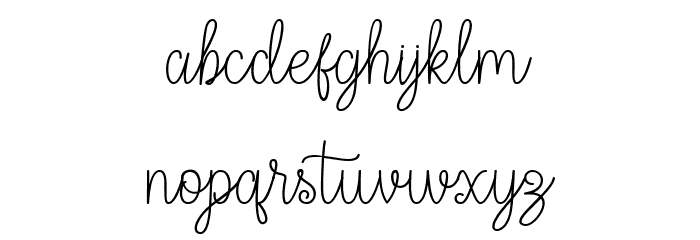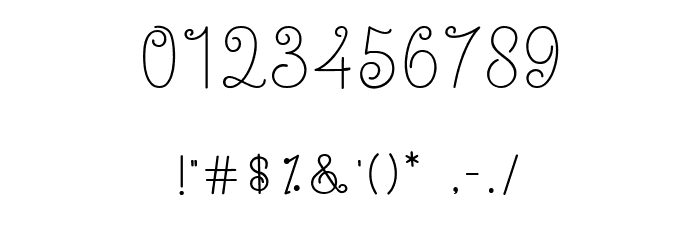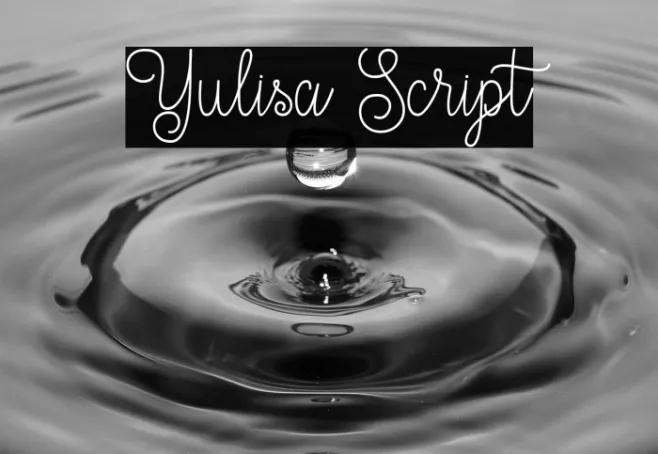
Yulisa Script Font
This elegant script font features a graceful and flowing design, characterized by its intricate loops and swirls. The uppercase letters are particularly ornate, with decorative flourishes that add a touch of sophistication and charm. The lowercase letters maintain a more subtle elegance, ensuring readability while still offering a stylish appearance. The numerals and special characters are consistent with the overall aesthetic, providing a cohesive look across all elements. This font exudes a sense of romance and creativity, making it ideal for projects that require a personal and artistic touch.
An elegant and flowing script font with intricate loops and swirls.
- Proposed Projects: Wedding invitations, greeting cards, branding, and logo design.
- Use Case: Logos, Invitations, Decorative text